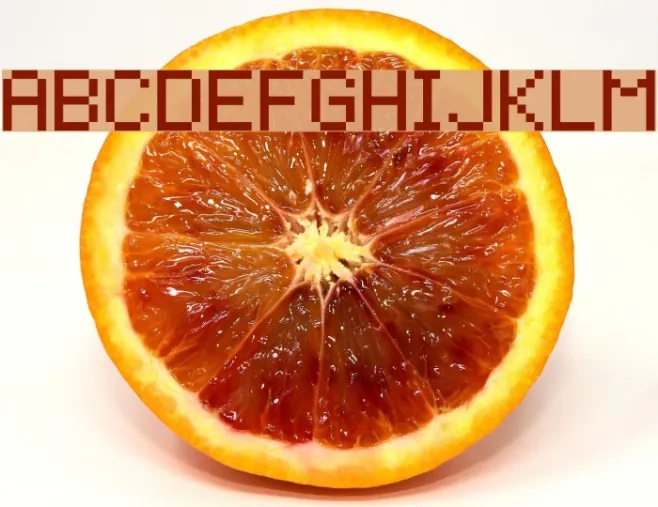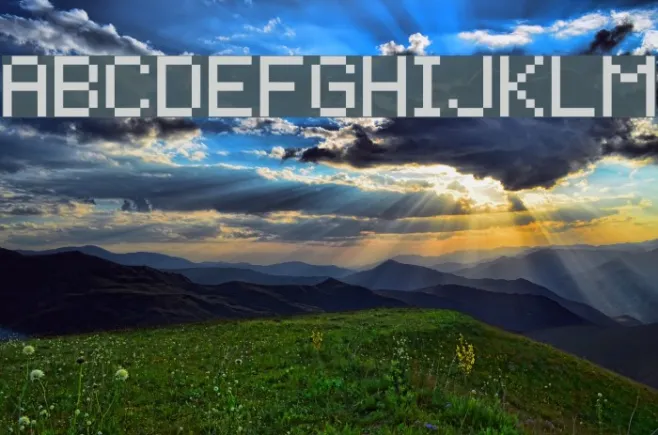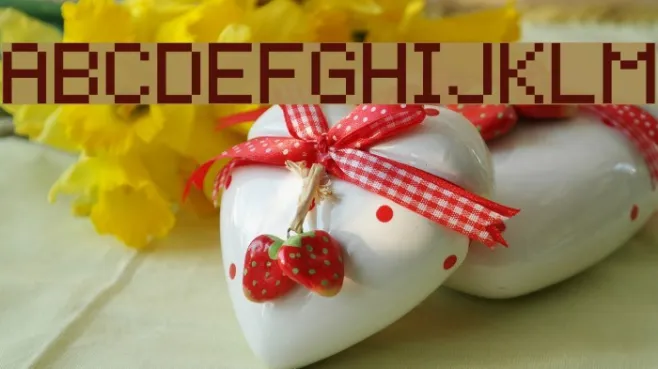
Volter [Goldfish] Font
Volter [Goldfish] Description
This font features a pixelated, blocky design reminiscent of early digital displays and retro video games. Each character is constructed with a grid-like precision, giving it a distinctly digital and geometric appearance. The uniformity in stroke width across all characters contributes to a cohesive and structured look. The font is highly legible, with clear distinctions between each letter and number, making it suitable for digital interfaces and retro-themed projects. Its nostalgic aesthetic is perfect for capturing the essence of classic arcade games and early computer graphics.
| Use Case | Logos, Headlines, Digital interfaces |
| Proposed Projects | Ideal for retro video game designs, digital displays, tech-themed posters, and nostalgic branding. |